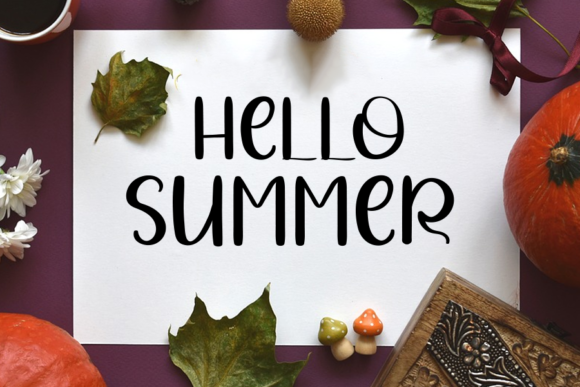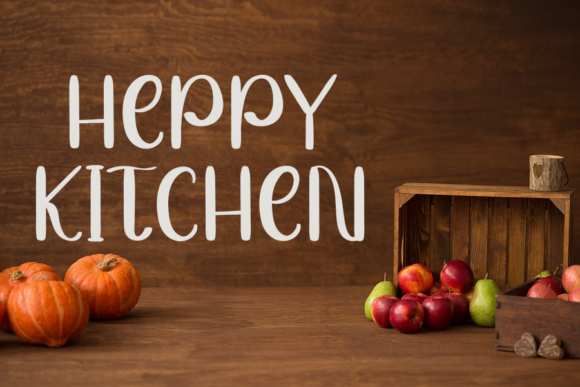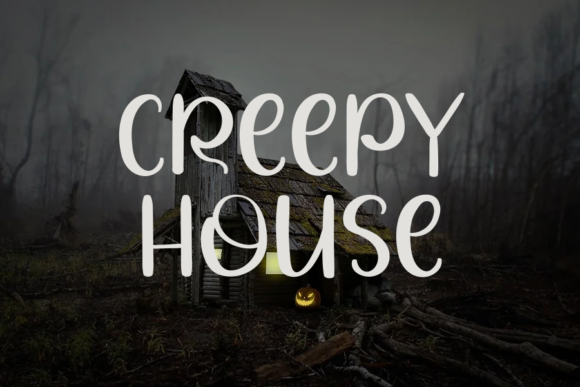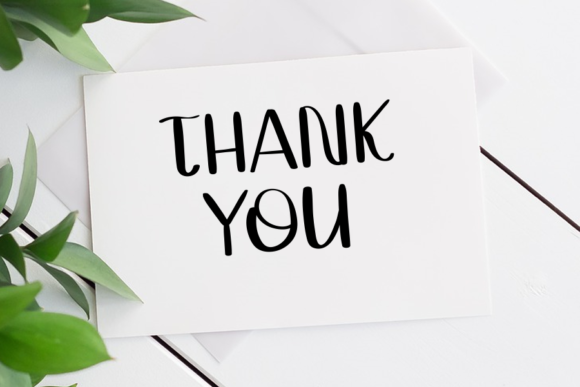
Smile Pumpkin Font
About Smile Pumpkin Font
Smile Pumpkin is a charming and playful handwritten font that brings a touch of whimsy to your designs. With its simple and clean letterforms, it is the perfect choice for creating eye-catching logos, branding, and quotes that exude a friendly and cheerful vibe.
The handwritten style of Smile Pumpkin adds a personal and authentic touch to your designs. It has a warm and inviting feel, making it suitable for a variety of applications. Whether you’re designing a logo for a children’s brand, creating playful branding materials, or crafting quote graphics, Smile Pumpkin will add a delightful and captivating element to your work.
In logo design, Smile Pumpkin can bring a sense of fun and creativity. Its friendly and approachable appearance makes it ideal for businesses targeting a younger audience or those seeking to create a lighthearted and joyful brand image. The font’s simplicity ensures readability, while its unique handwritten look adds character and uniqueness to your logo.
Branding materials, such as packaging, labels, and promotional materials, can also benefit from the use of Smile Pumpkin. Its clean and legible letterforms make it easy to incorporate into various design elements, while its handwritten style adds a touch of personality and warmth. It can help create a cohesive and memorable brand identity that stands out from the crowd.
Quotes and typography-based designs are another area where Smile Pumpkin shines. Its playful and casual vibe is perfect for creating quote graphics, social media posts, or inspirational posters. The font’s simplicity allows the focus to be on the message itself, while its handwritten appearance adds a touch of creativity and charm.
In summary, Smile Pumpkin is a simple and clean handwritten font that is well-suited for creating eye-catching logos, branding, and quotes. Its charming and playful style adds a touch of whimsy to your designs, making them stand out and captivate the audience. Add Smile Pumpkin confidently to your favorite creations and be amazed by the delightful outcome it generates.